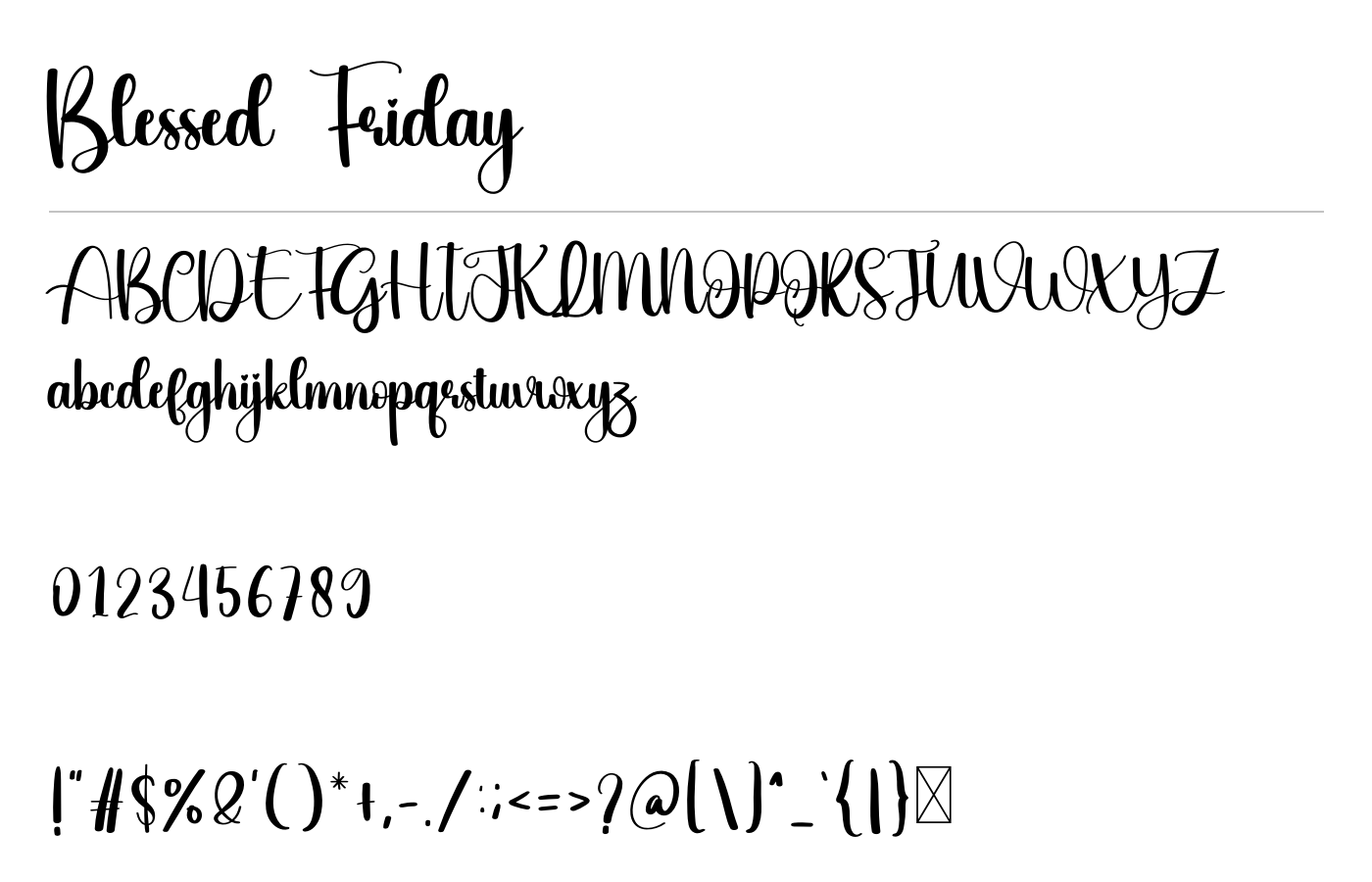
Blessed Friday is a playful and elegant handwritten script font featuring tall, slender letterforms with delicate flowing strokes and charming swashes. Its lively personality and clear legibility make it perfect for creative branding, invitations, and stylish headlines where a personal, friendly touch is desired. This font adds warmth and character to any design, especially for fashion, lifestyle, and greeting card projects.
Blessed Friday Font
About Blessed Friday Font